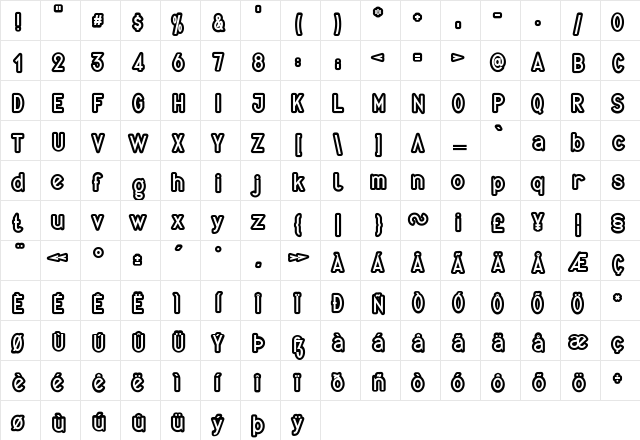
Quirkus Out Regular
| Foundry | Peter Wiegel |
| Designer | Peter Wiegel |
Design Context for Quirkus Out Typeface
Quirkus Out offers clean, dependable letterforms without strong stylistic allegiance, making it a practical choice for designers who need flexibility.